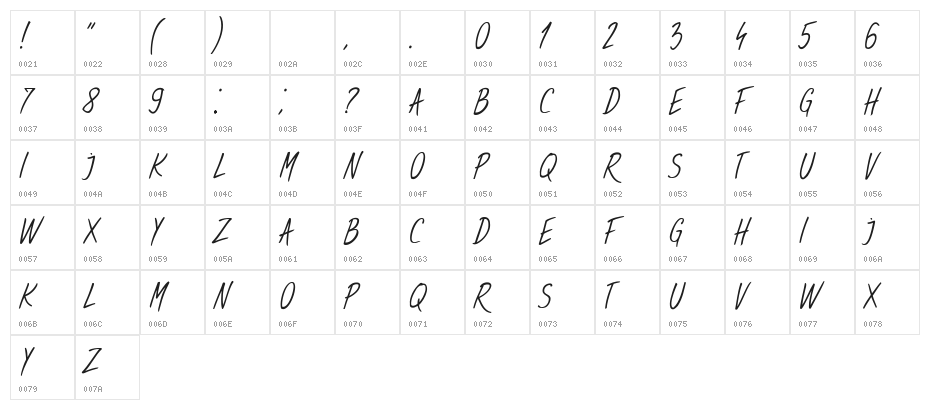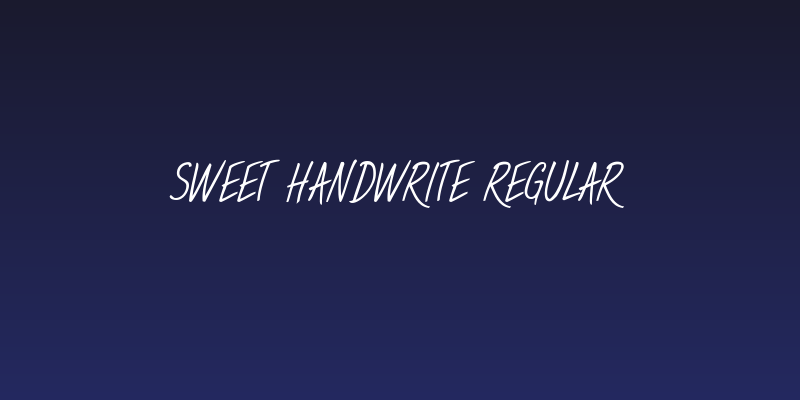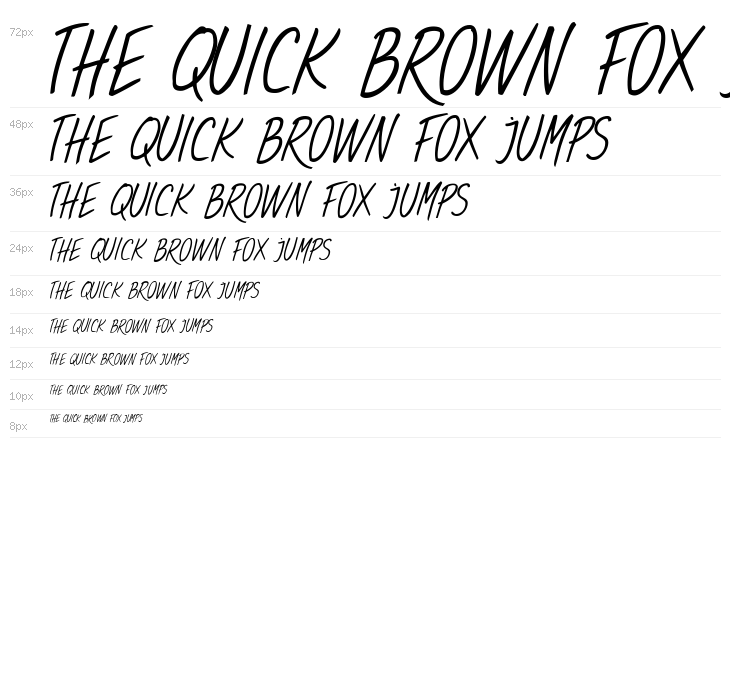
Sweet Handwrite Regular Font
Sweet Handwrite Regular Description
This font features a dynamic and fluid handwritten style, characterized by its elongated and slightly slanted letterforms. The strokes are smooth and continuous, giving it an organic and personal touch. The uppercase and lowercase letters maintain a consistent flow, with a playful yet elegant appearance. The numbers and special characters are crafted with the same attention to detail, ensuring a cohesive look across all elements. This font exudes a sense of creativity and spontaneity, making it ideal for projects that require a personal and informal touch.
| Proposed Projects | Ideal for greeting cards, invitations, personal branding, and creative projects that require a personal touch. |